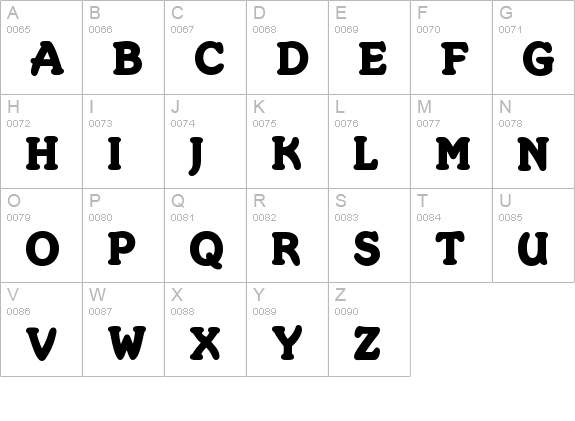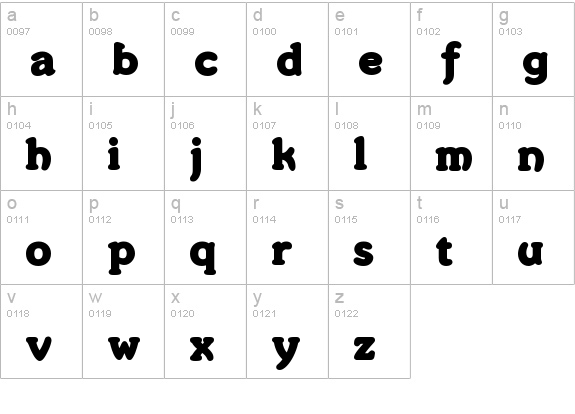
Merkin Font Details
Merkin font is a versatile and stylish typeface that exudes elegance and sophistication. With its clean lines and modern aesthetic, Merkin is perfect for a wide range of design projects, from branding to editorial design. This font features a unique blend of classic and contemporary elements, making it a standout choice for both print and digital applications. Best of all, Merkin font is available for free download at FontsMarket.com. Whether you're a seasoned designer looking to add a fresh new typeface to your collection or a beginner searching for the perfect font for your next project, Merkin is sure to impress. Don't miss out on this fantastic opportunity to enhance your designs with this stunning and versatile font. Download Merkin today and take your work to the next level!